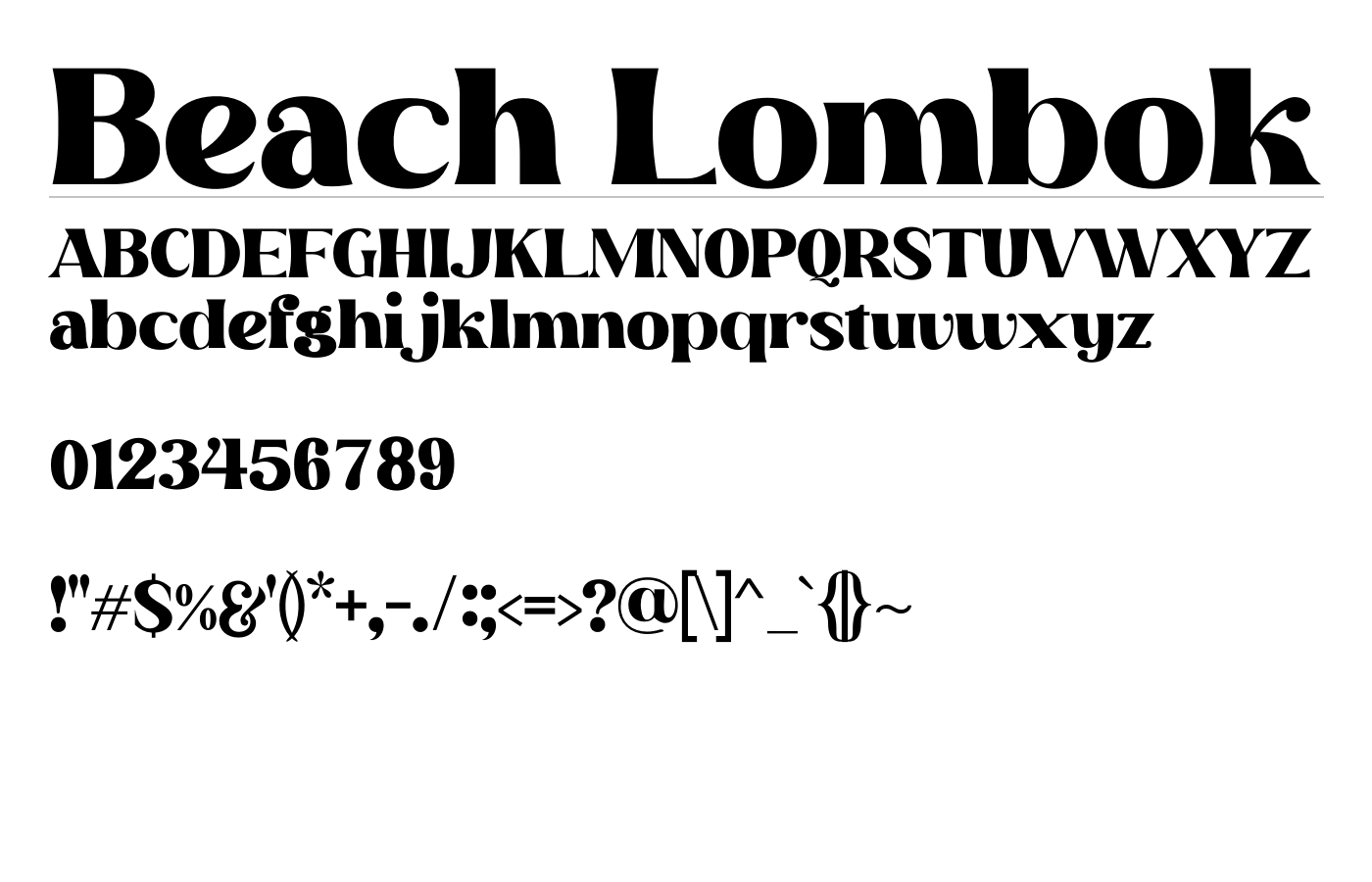
Beach Lombok is a bold, serif typeface with a strong presence and high contrast between thick and thin strokes, lending it a dramatic and elegant feel. Its unique letterforms, featuring stylized curves and distinct serif shapes, make it perfect for fashion, luxury branding, and eye-catching headlines. This font works well in editorial designs and packaging where a sophisticated yet playful tone is desired.
Beach Lombok Font
About Beach Lombok Font
| Font family | Beach Lombok Font |